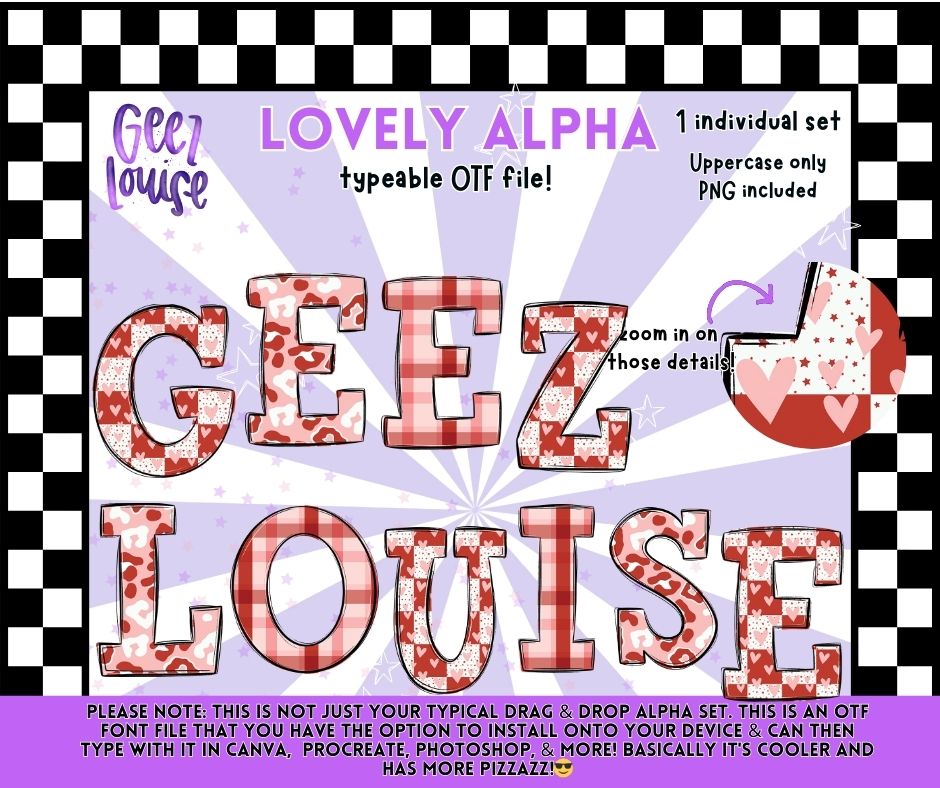
Meet Lovely Alpha, a bold, pattern-packed alpha designed to stand out.
Each letter features playful Valentine-inspired patterns with a stitched, dimensional look that brings extra personality to your designs.
Perfect for:
• Digital designs
• Apparel graphics
• Stickers and decals
• Sublimation and print projects
This alpha is designed to give you more flexibility, more control, and a lot more visual interest than a standard alpha set.